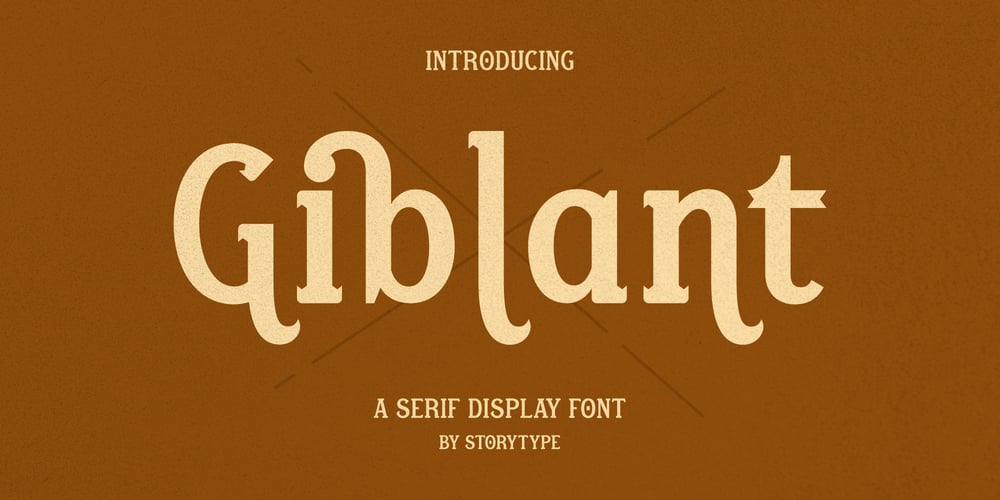
Giblant
Giblant font
Giblant Font Family was designed by Heru Utama Putra and published by Letterena Studios. Giblant contains 2 styles and family package options. Giblant Typeface is a modern serif font with one unique look. This typeface is perfect for elegant & luxury logos, book or movie title designs, fashion brands, magazines, clothes, lettering, quotes, and so much more.